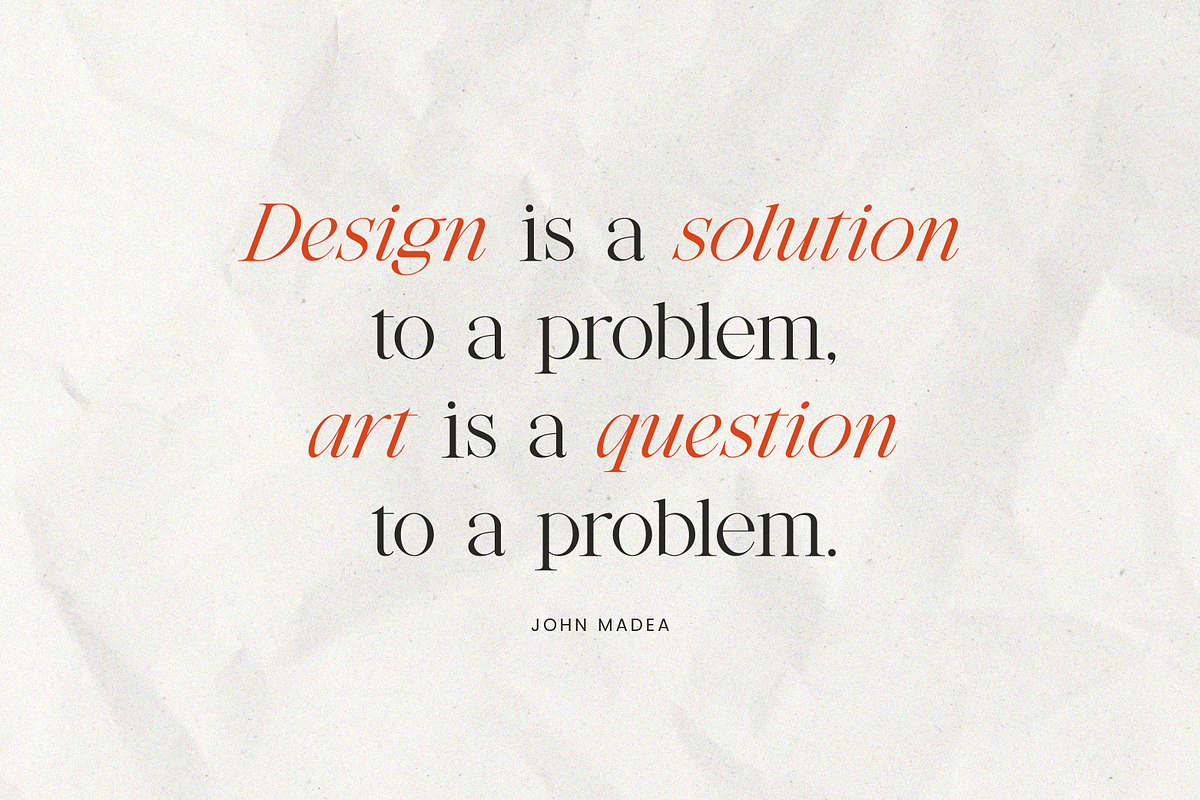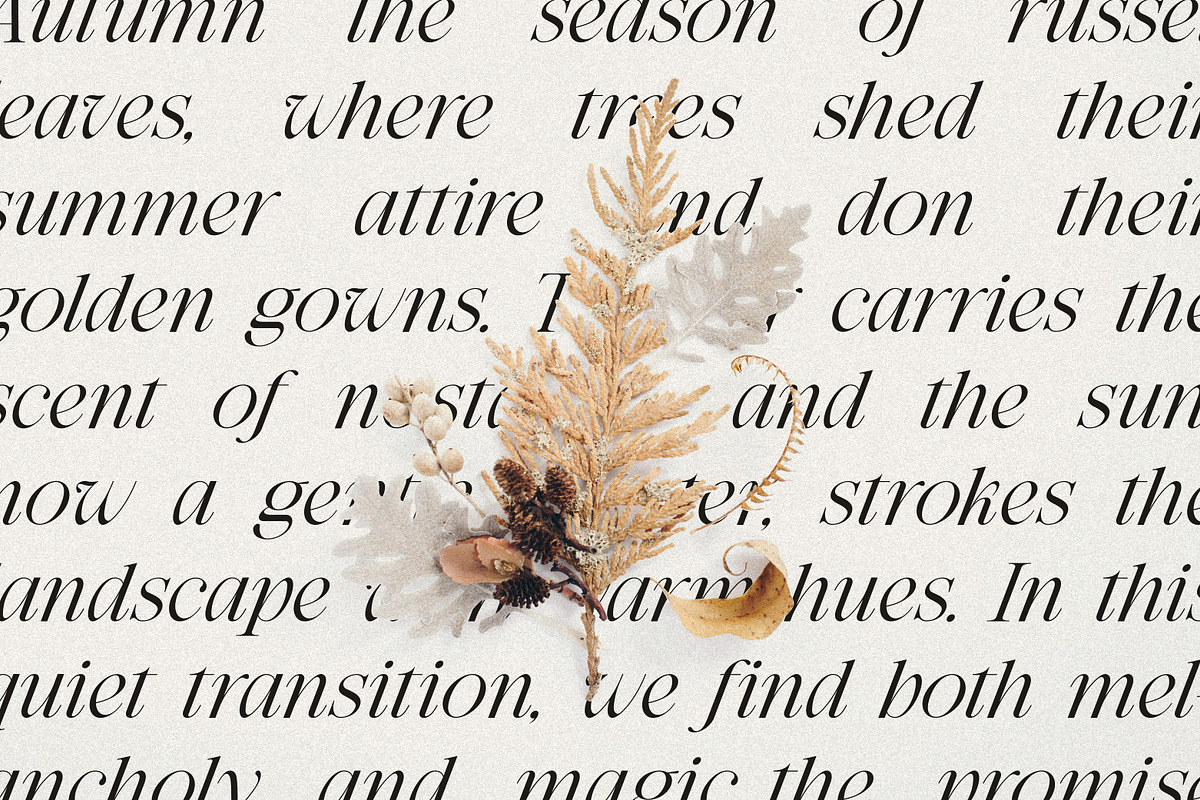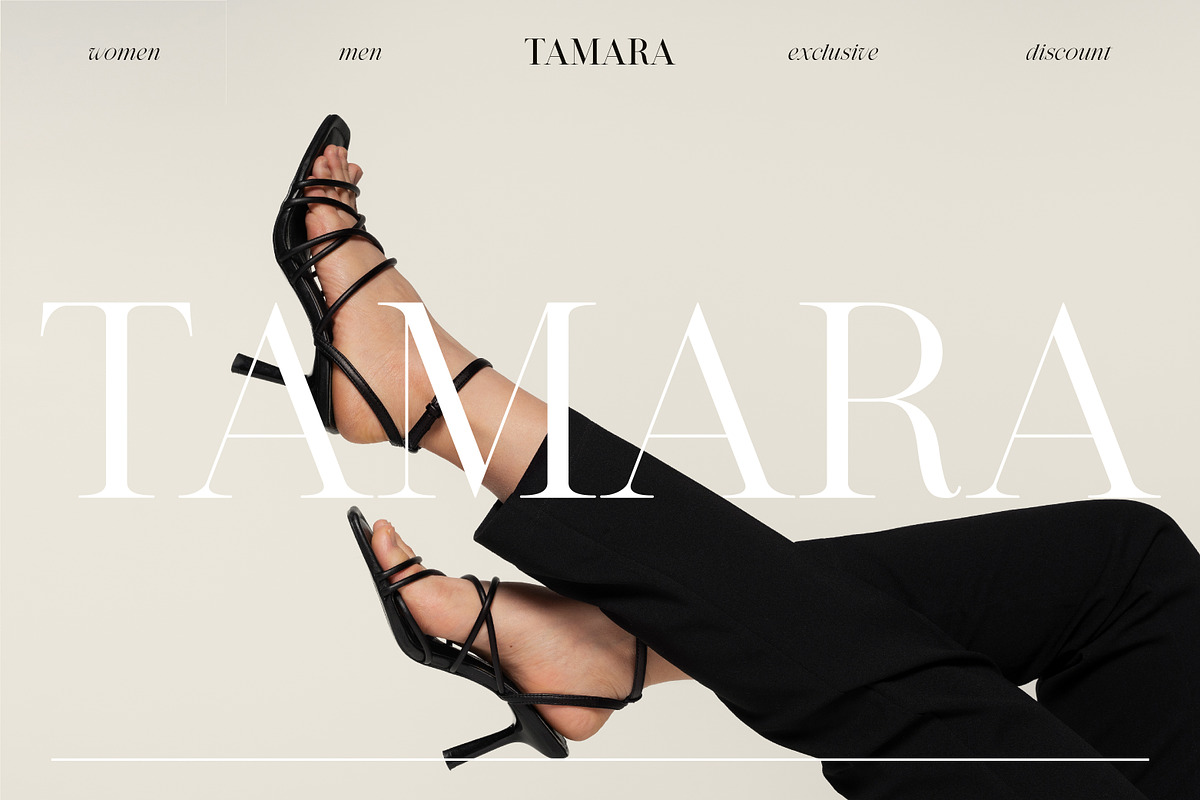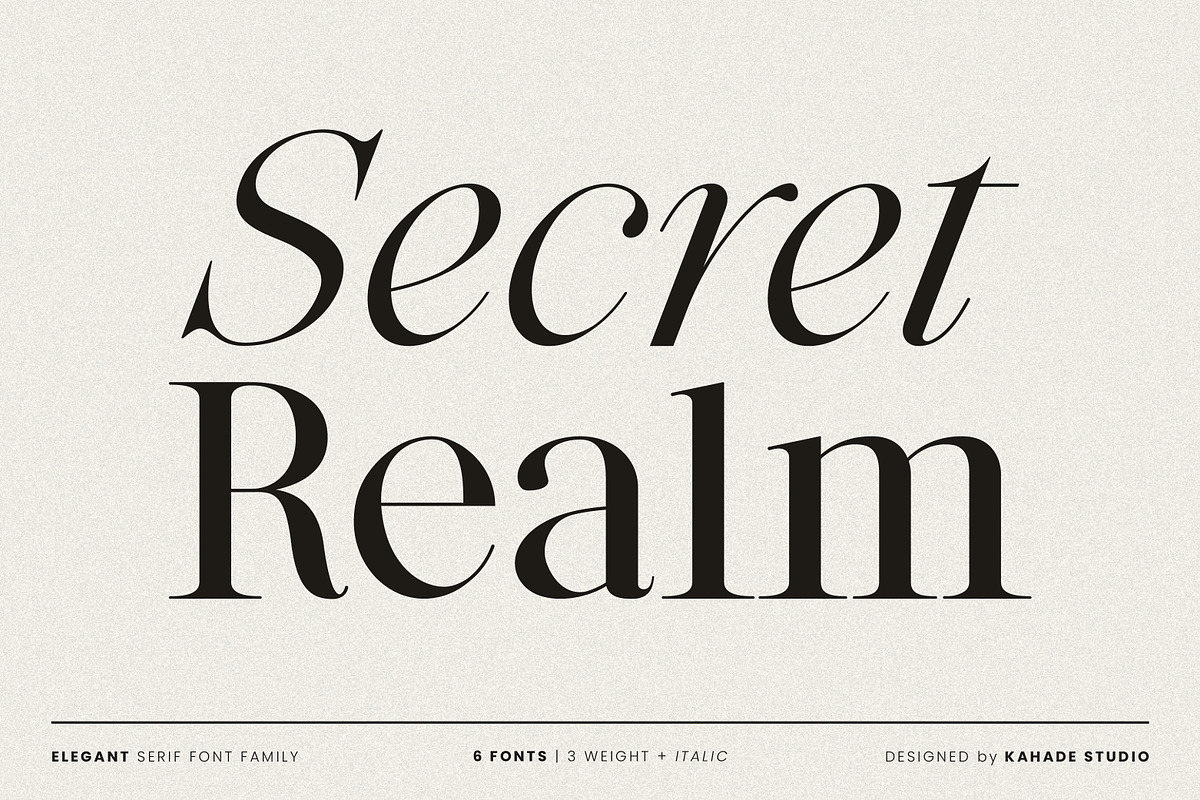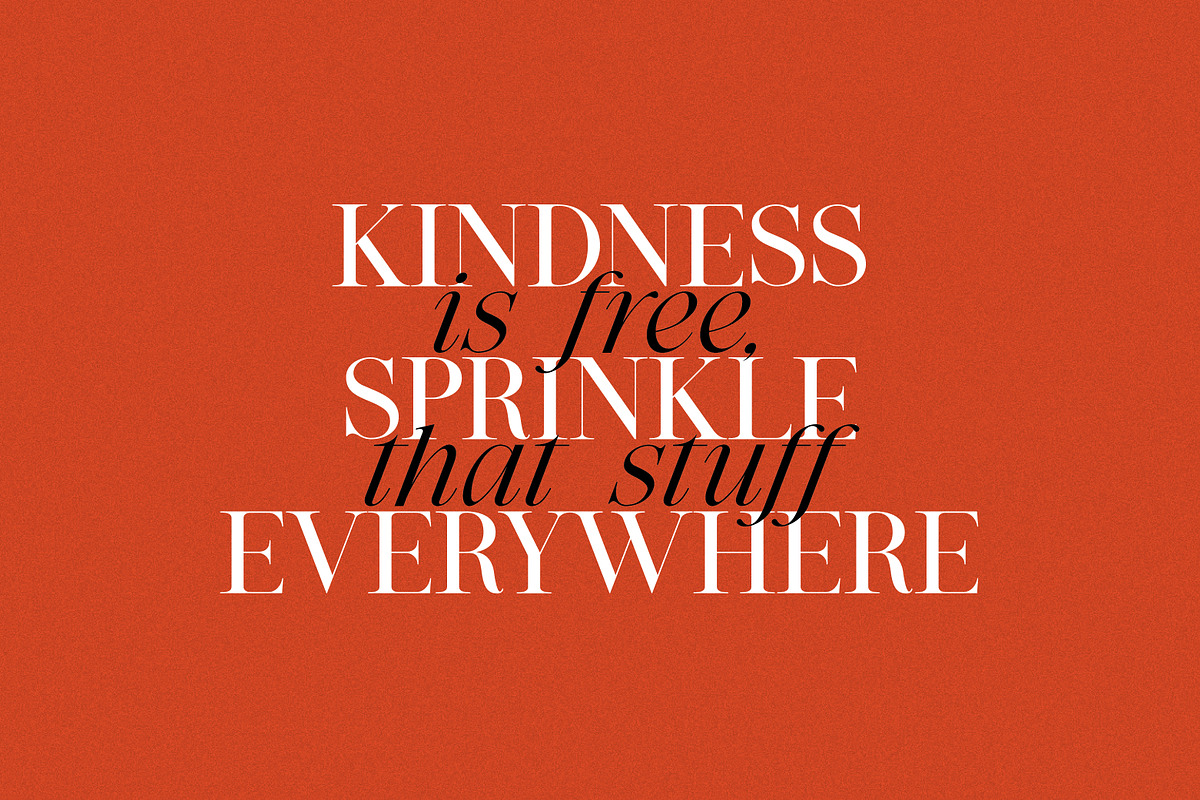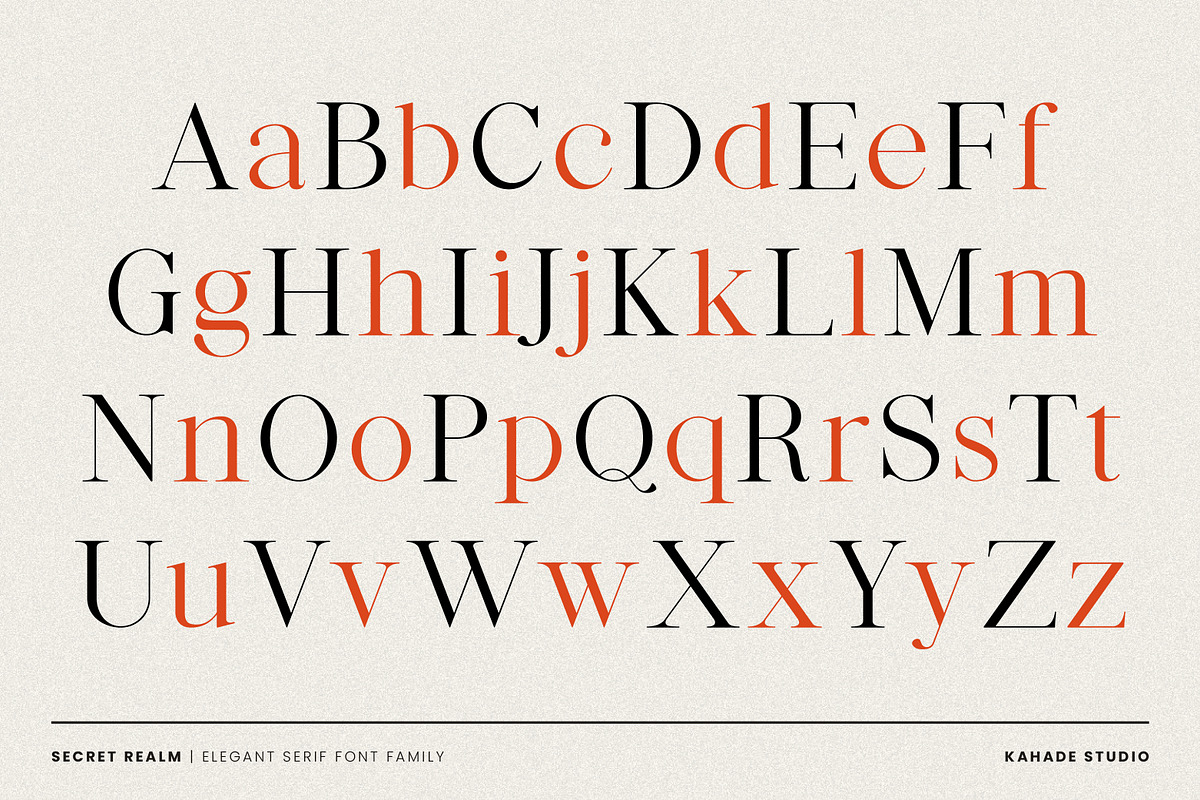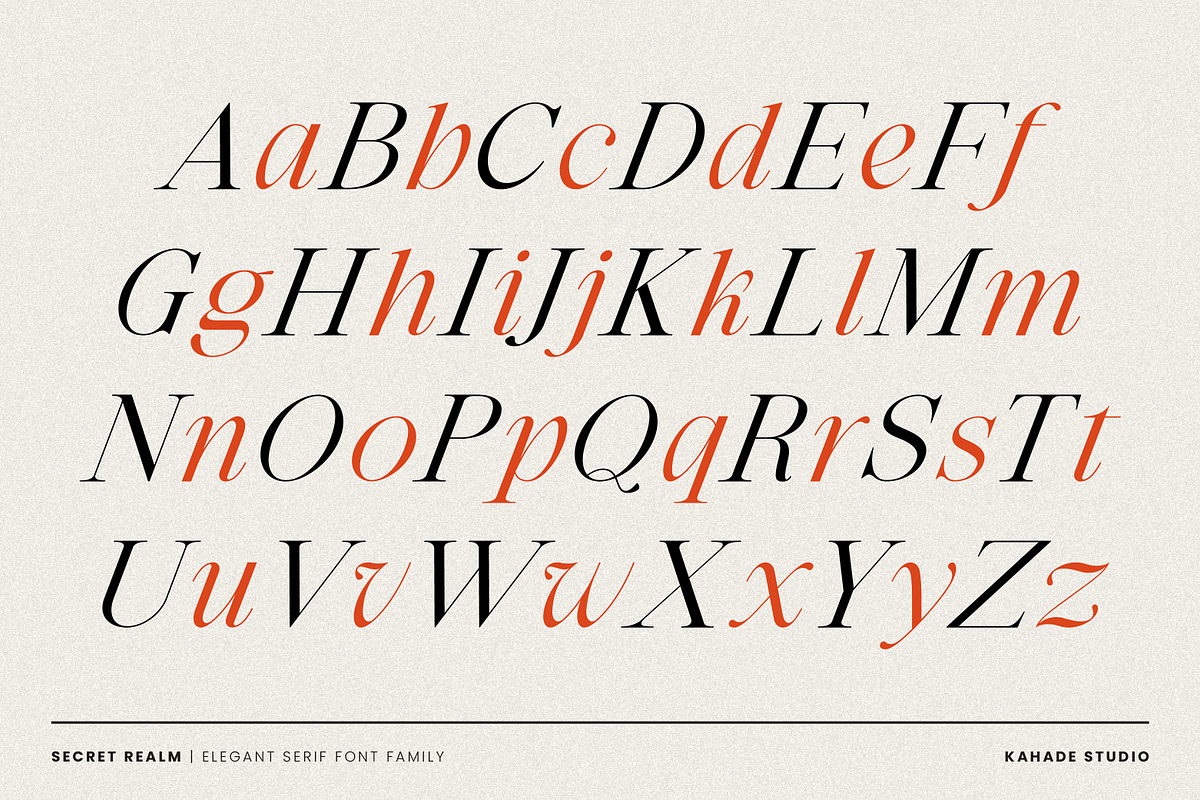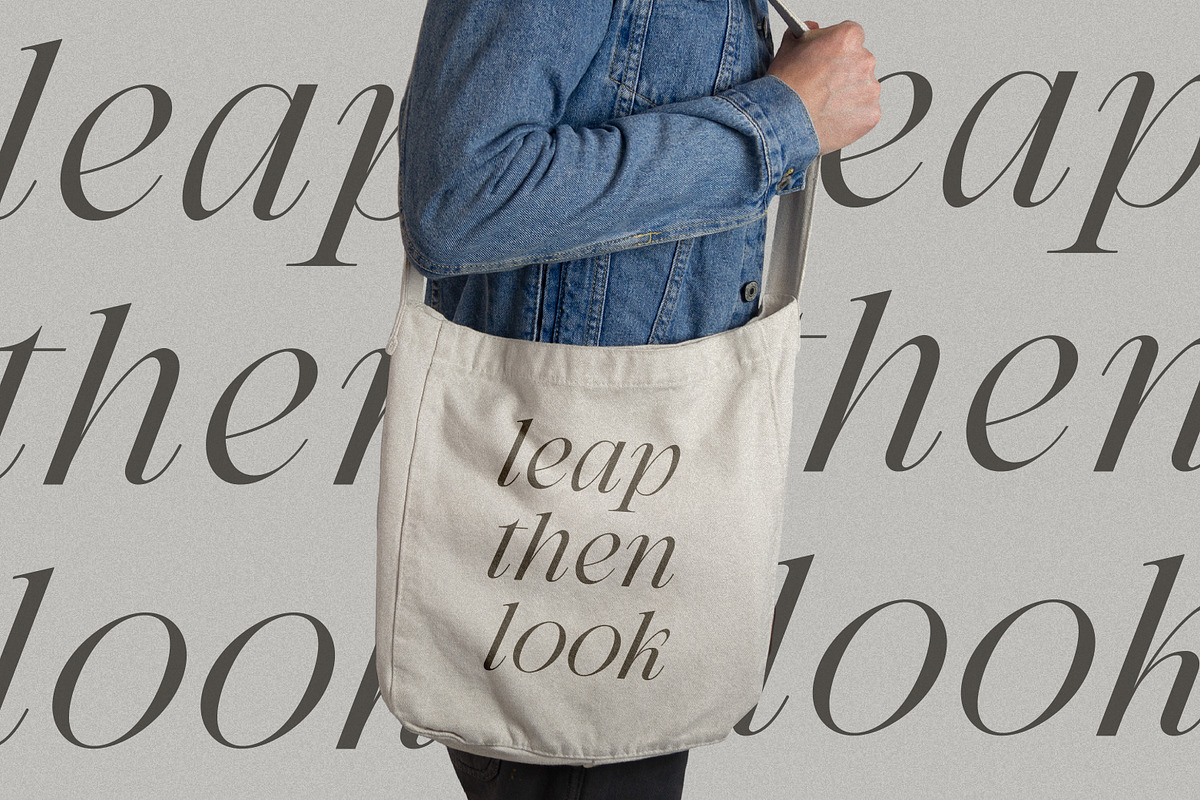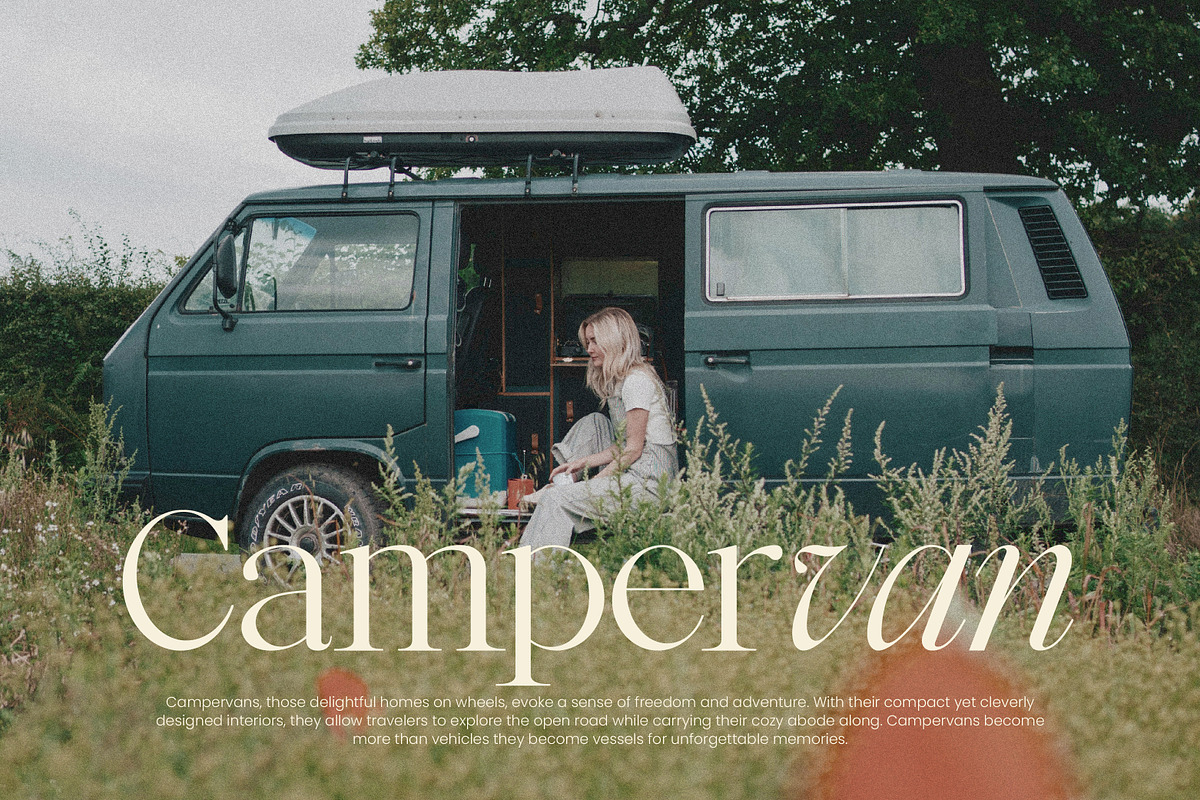
Secret Realm - Editorial Serif Font
Secret Realm – Elegant Editorial Serif Font. This font has a modern serif inspired by classy eighties magazine style. This font has clean curves and neat lines giving a trendy minimalist vibes. Suitable for your various special project needs.